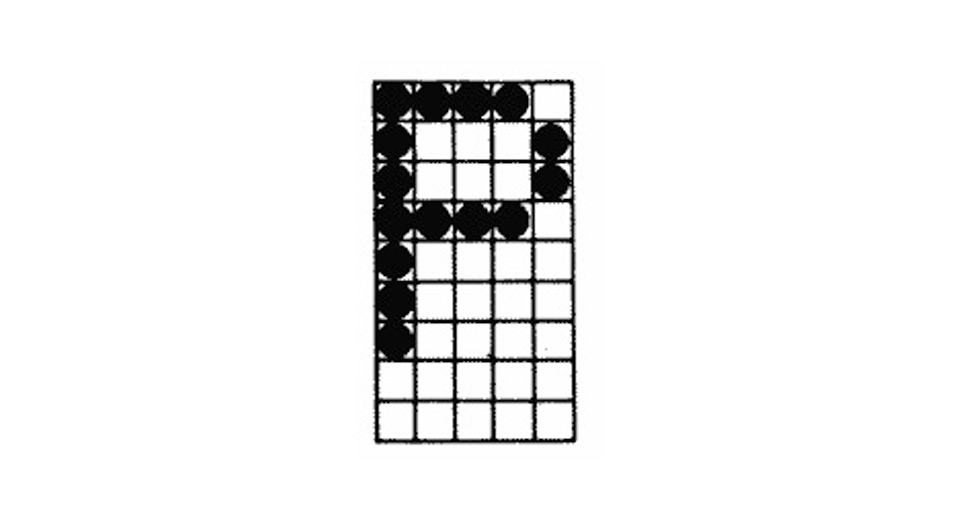
Bleep reimagines the dot-matrix aesthetic for contemporary typography, splitting into two distinct families – Alpha and Beta – that play with the boundaries of legibility and form.
Alpha, the more experimental of the two, takes its unconventional proportions from Bauer's Venus and Or Type's Seperat, while Beta offers a more familiar interpretation of the pixel grid. Both families push the boundaries of weight, offering five grades that progress from clear to deliberately challenging, with the boldest weight teetering at the edge of readability.
The italics take an audacious 22.5° slant, creating unexpected moments where the heavier weights fracture and break free from their pixel grid constraints, transforming mechanical precision into controlled chaos.
OpenType Features
CASE SENSITIVE
FRACTIONS
OLDSTYLE NUMERALS
TABULAR NUMERALS